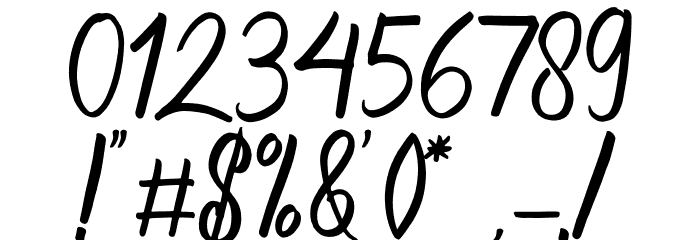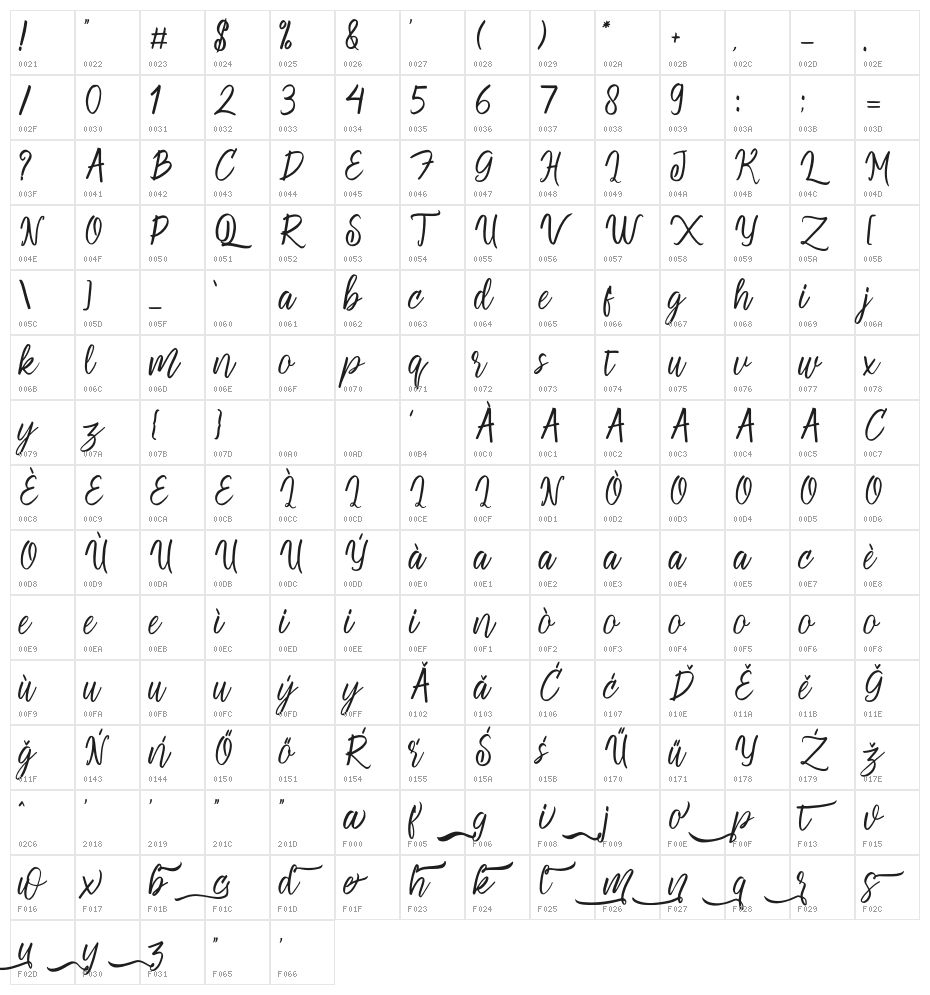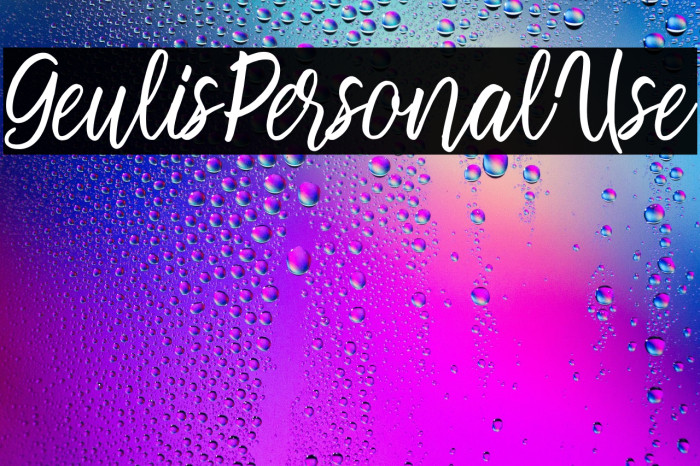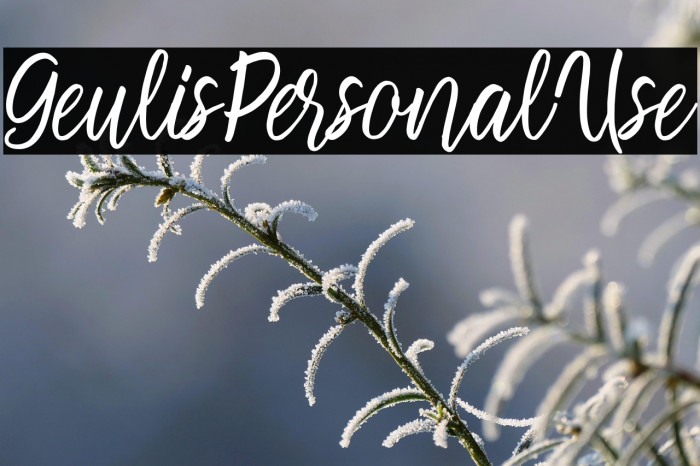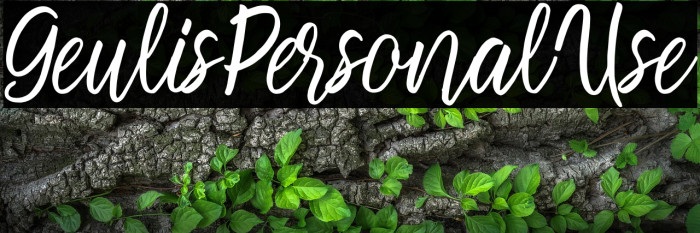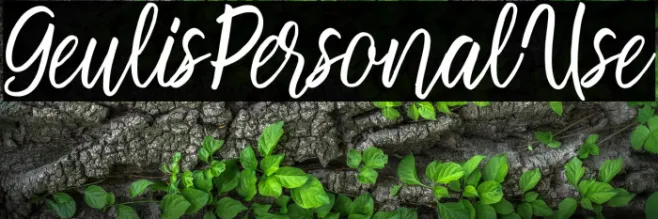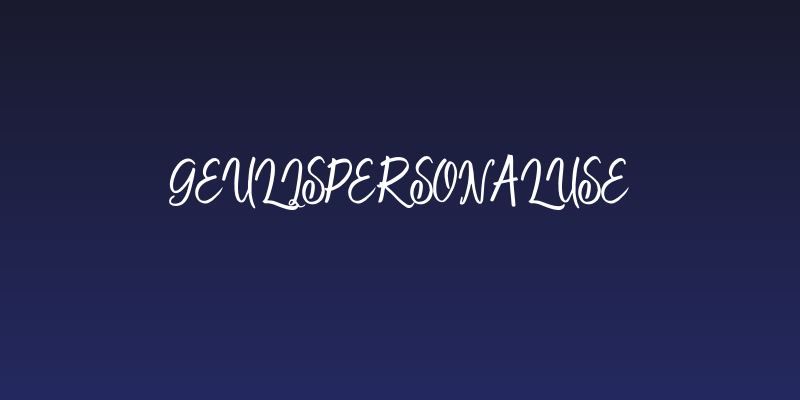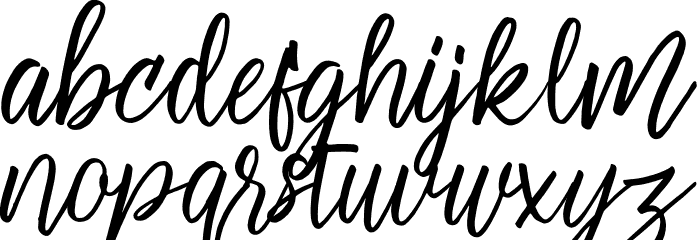
GeulisPersonalUse Font
GeulisPersonalUse Description
This font features a dynamic and expressive script style, characterized by its fluid and cursive letterforms. The uppercase letters exhibit a sense of elegance with their sweeping curves and varying stroke widths, while the lowercase letters maintain a consistent flow, enhancing readability. The numerals are bold and slightly slanted, complementing the overall aesthetic. Special characters are thoughtfully integrated, maintaining the font's cohesive appearance. The design is both playful and sophisticated, making it suitable for a variety of creative applications.